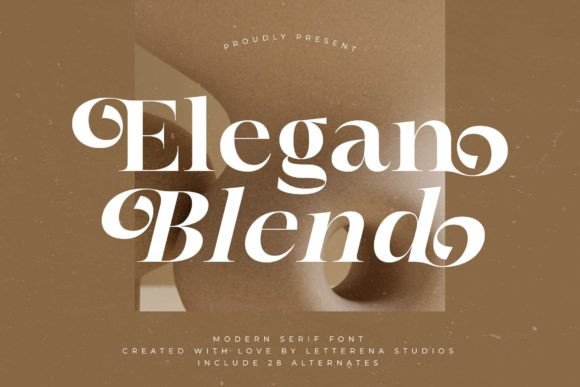
Elegan Blend Font: Elevate Your Designs with Modern Elegance
In the world of typography, the right font can make all the difference in the success of a design project. Whether you’re working on editorial designs, luxury branding, or web typography, the font you choose can elevate or detract from the overall aesthetic. This is where Elegan Blend comes in – a modern and stylish serif font that is designed to bring a touch of sophistication and elegance to your creative projects.
The Elegance of Elegan Blend
Elegan Blend is a serif font that seamlessly marries clean lines with subtle curves, creating a contemporary look that is both stylish and sophisticated. Its unique blend of modern and classic elements makes it the perfect choice for designers looking to add a touch of elegance to their work. With Elegan Blend, you can expect a level of refinement and poise that will enhance every composition.
Key Features of Elegan Blend
- Clean Lines: Elegan Blend features clean lines that provide a crisp and modern look, making it perfect for editorial designs and luxury branding.
- Subtle Curves: The subtle curves in Elegan Blend add a touch of sophistication and elegance, setting it apart from other serif fonts.
- Contemporary Look: The unique blend of clean lines and subtle curves creates a contemporary look that is both stylish and modern.
- Sophisticated Presence: Elegan Blend has a sophisticated presence that enhances every composition, making it perfect for designers looking to add a touch of elegance to their work.
Perfect for Editorial Designs
Elegan Blend is perfect for editorial designs, including magazines, newspapers, and books. Its clean lines and subtle curves create a sophisticated look that is both easy to read and visually appealing. Whether you’re designing a fashion magazine or a luxury lifestyle publication, Elegan Blend is the perfect choice.
Examples of Elegan Blend in Editorial Designs
- Fashion Magazines: Use Elegan Blend to create a stylish and sophisticated look for your fashion magazine, perfect for featuring the latest fashion trends and styles.
- Luxury Lifestyle Publications: Elegan Blend is perfect for luxury lifestyle publications, adding a touch of elegance and sophistication to your design.
- Books: Whether you’re designing a fiction or non-fiction book, Elegan Blend is a great choice, providing a clean and easy-to-read font that will enhance the reader’s experience.
Luxury Branding and Web Typography
Elegan Blend is not just limited to editorial designs; it’s also perfect for luxury branding and web typography. Its sophisticated presence and modern look make it a great choice for luxury brands looking to create a high-end aesthetic. Whether you’re designing a website, logo, or marketing materials, Elegan Blend is the perfect choice.
Examples of Elegan Blend in Luxury Branding and Web Typography
- Luxury Brands: Use Elegan Blend to create a high-end aesthetic for your luxury brand, perfect for logos, marketing materials, and website design.
- Web Typography: Elegan Blend is perfect for web typography, providing a clean and easy-to-read font that will enhance the user experience.
- Digital Marketing Materials: Whether you’re designing digital marketing materials, such as email campaigns or social media graphics, Elegan Blend is a great choice.
Why Choose Elegan Blend?
So why choose Elegan Blend for your design projects? Here are just a few reasons:
Reasons to Choose Elegan Blend
- Unique and Sophisticated: Elegan Blend is a unique and sophisticated font that will add a touch of elegance to your design projects.
- Versatile: Elegan Blend is a versatile font that can be used in a variety of design projects, from editorial designs to luxury branding and web typography.
- Easy to Read: Elegan Blend is easy to read, making it perfect for body text and other applications where readability is key.
- Modern and Stylish: Elegan Blend has a modern and stylish look that will enhance every composition.
In conclusion, Elegan Blend is a modern and stylish serif font that is perfect for designers looking to add a touch of elegance to their creative projects. With its clean lines, subtle curves, and sophisticated presence, Elegan Blend is a versatile font that can be used in a variety of design projects, from editorial designs to luxury branding and web typography. Whether you’re looking to create a high-end aesthetic or simply want to add a touch of sophistication to your design, Elegan Blend is the perfect choice.